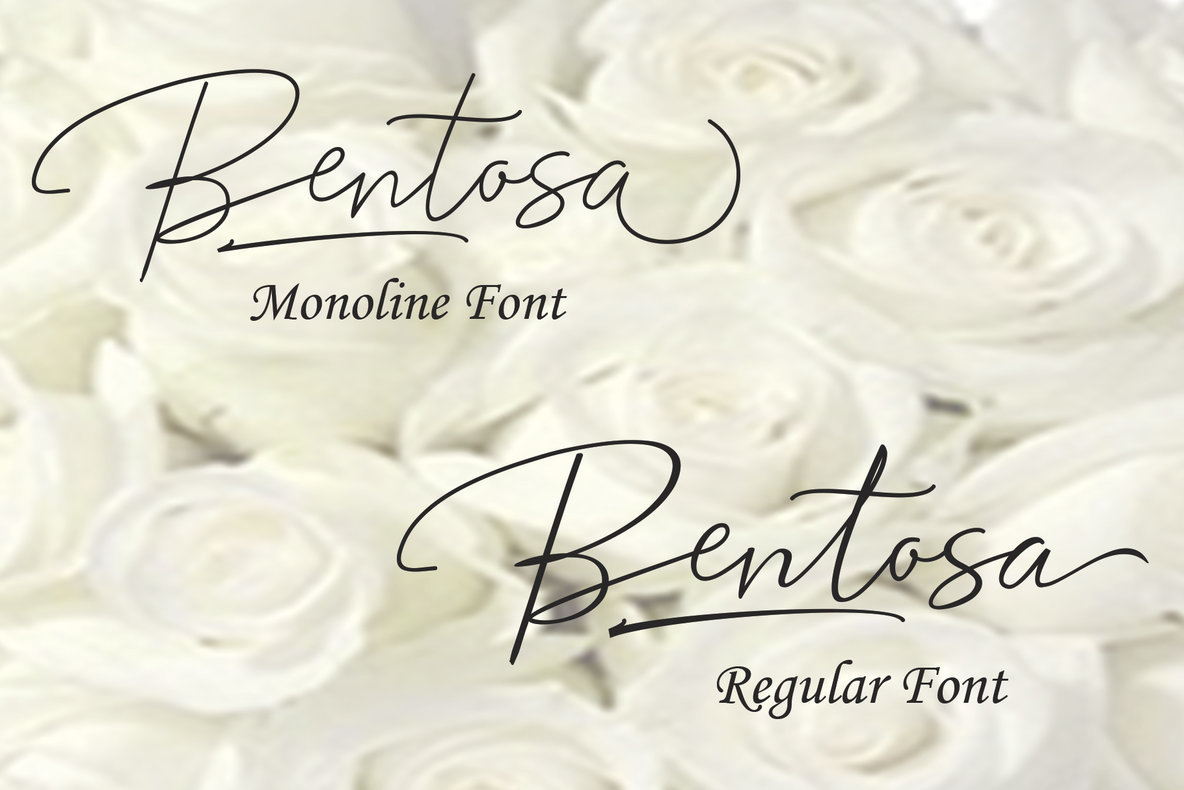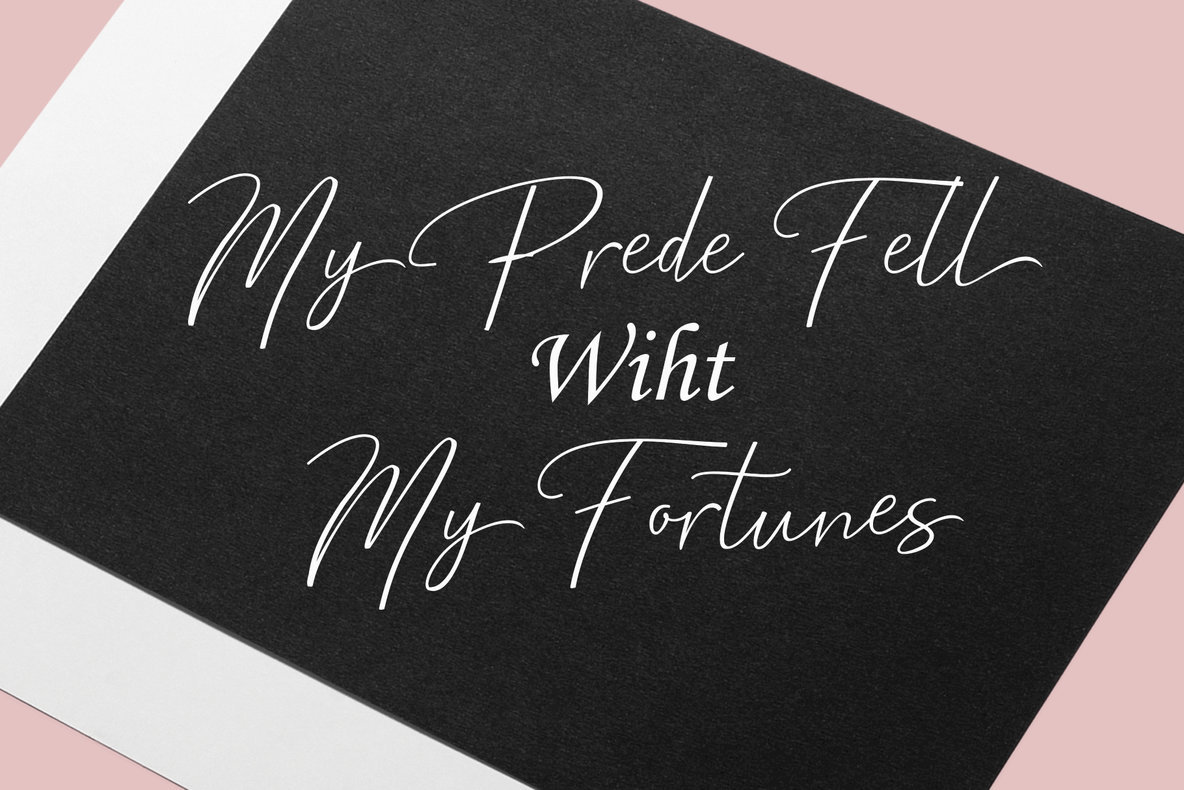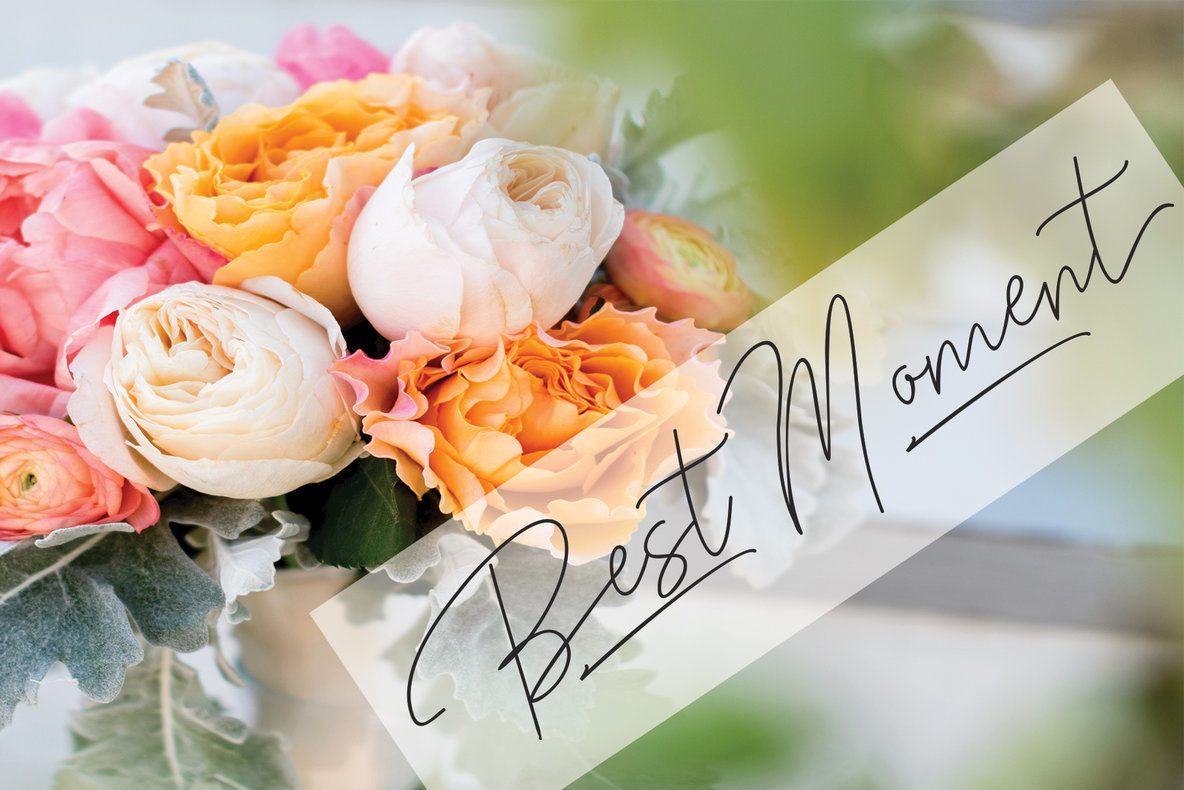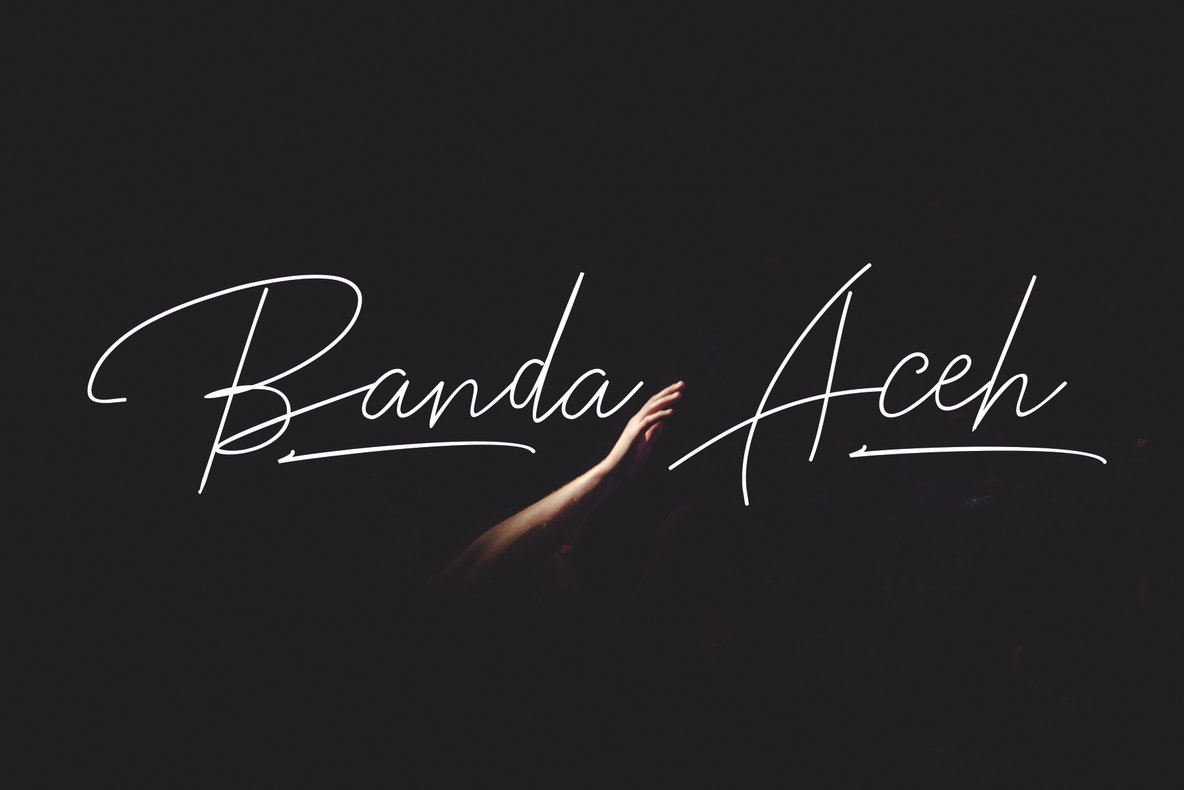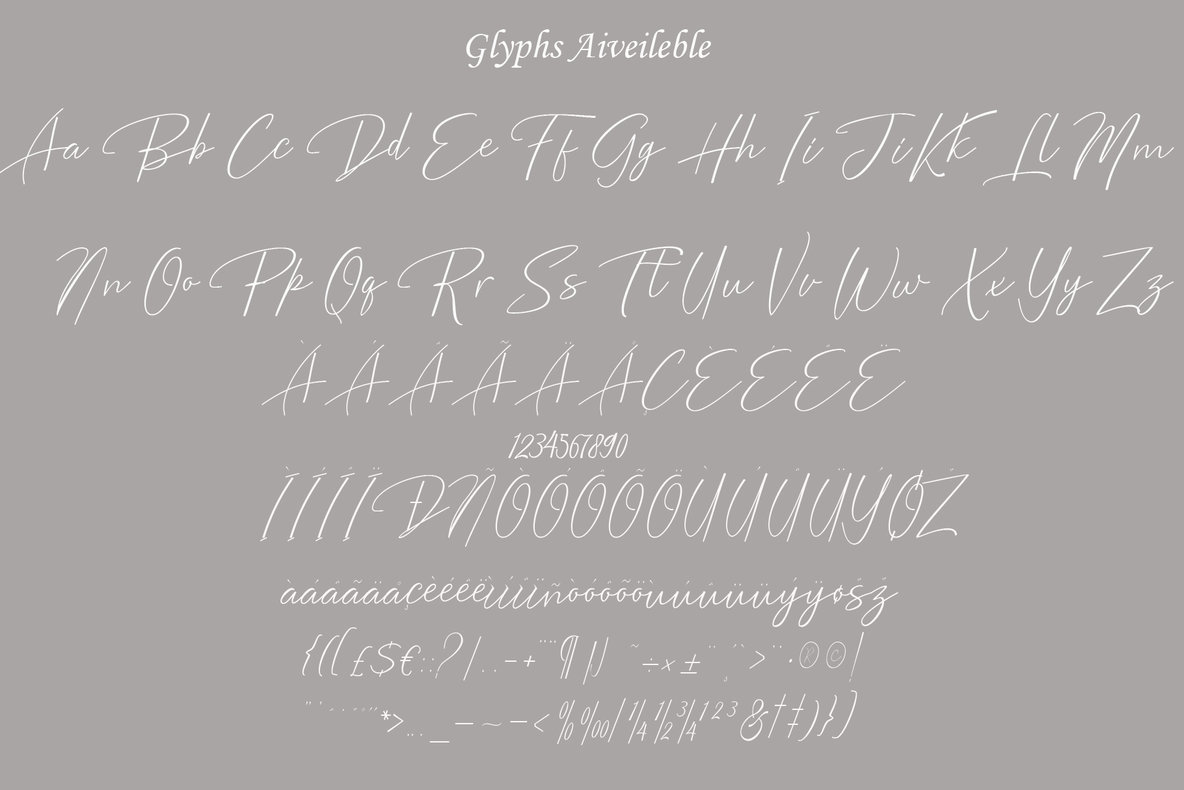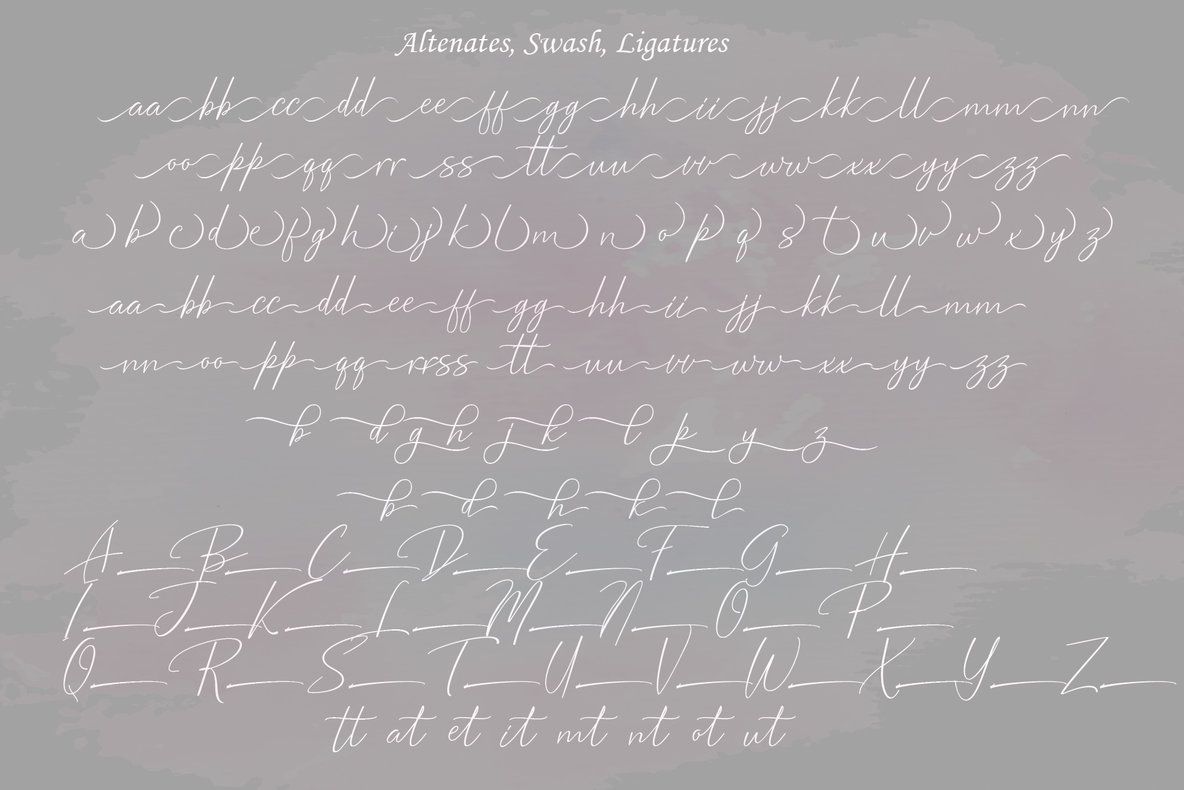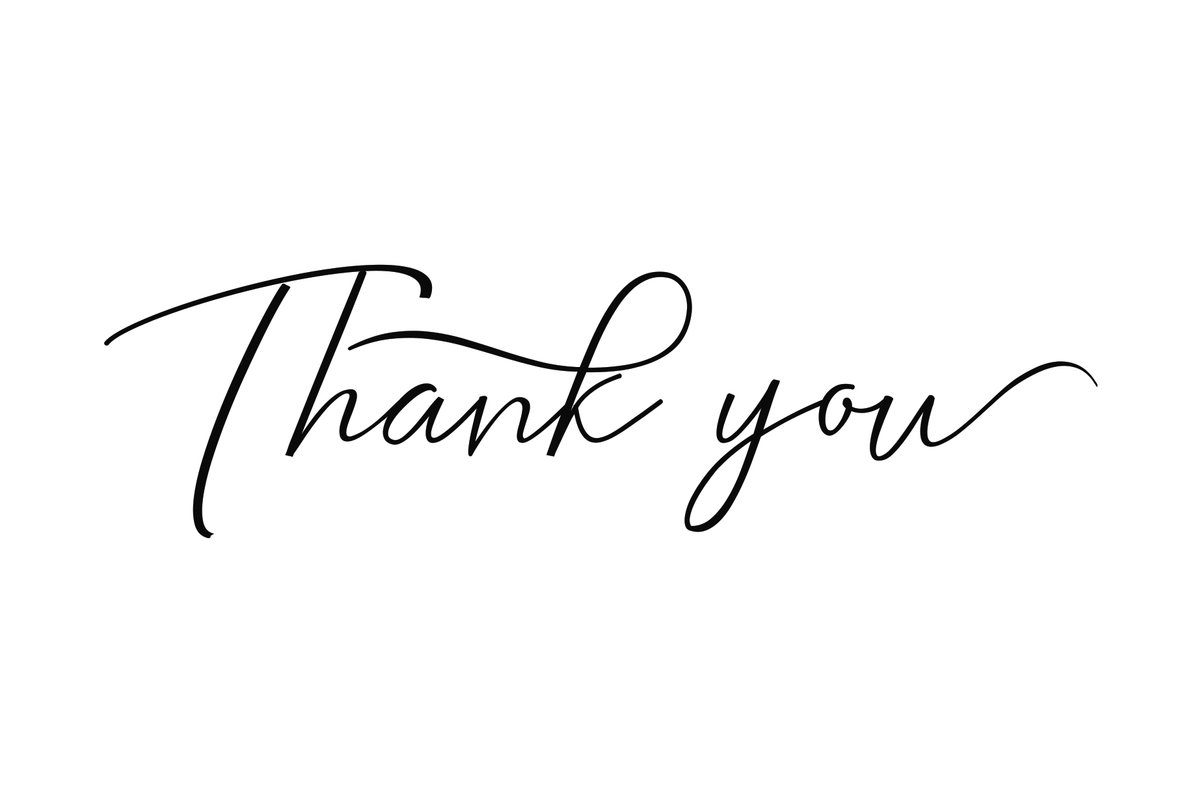
Bentosa Script Font
The Bentosa Script collection, with Bentosa Line and Bentosa Regular, presents a refined blend of stylish calligraphy. Its varying baselines, fine lines, and classic elegance make it perfect for a wide array of projects, whether for titles, signatures, logos, or more creative pursuits like wedding invitations and t-shirt designs. Bentosa Script supports uppercase and lowercase letters, numbers, and punctuation, with multiple language support incorporated to cater to diverse global needs. It is accessible via OpenType smart programs such as Adobe Photoshop, Illustrator, Indesign, Corel Draw, and Microsoft Office, as well as through character map software.Bentosa Script: Elegant Calligraphy Duo